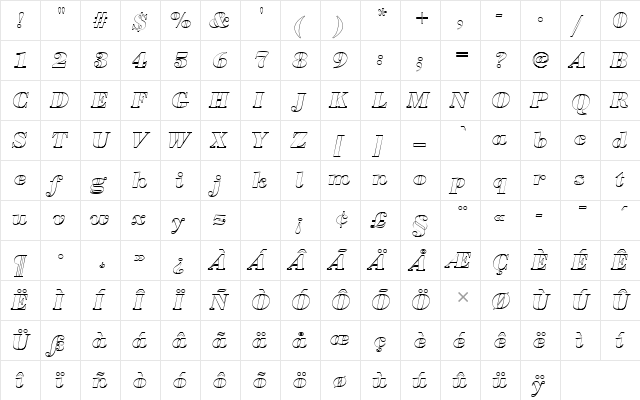
BodoniAntTBolItaOu1 Regular
Design Context for BodoniAntTBolItaOu1 Typeface
BodoniAntTBolItaOu1 is a composed and adaptable typeface that performs quietly and consistently across a wide range of design contexts.